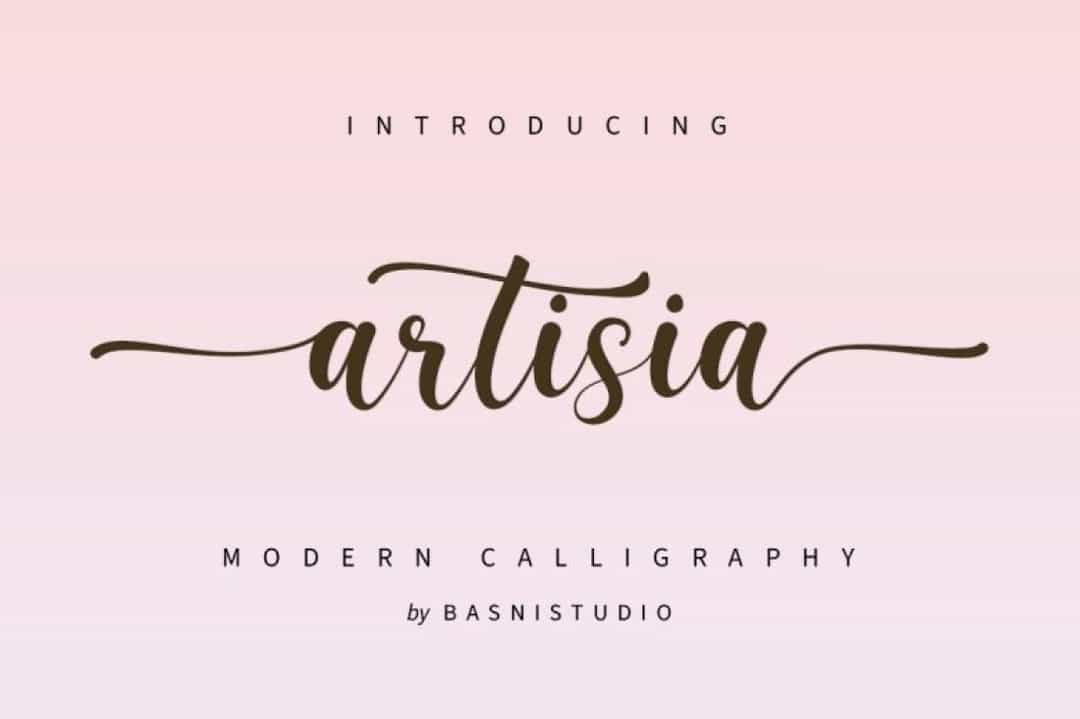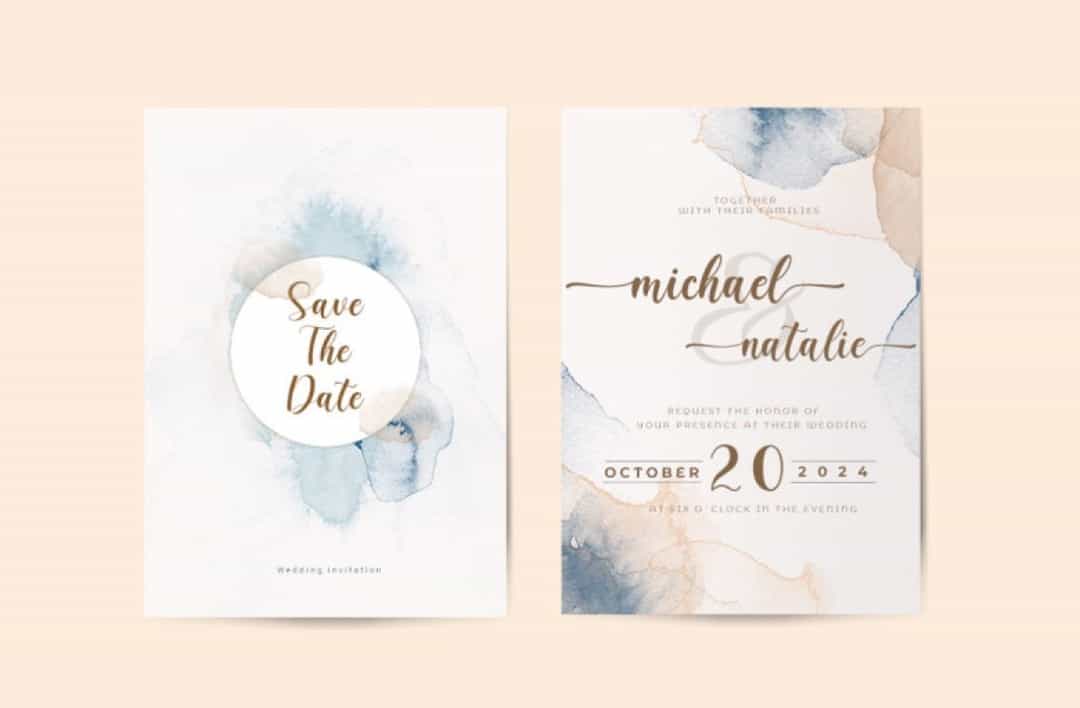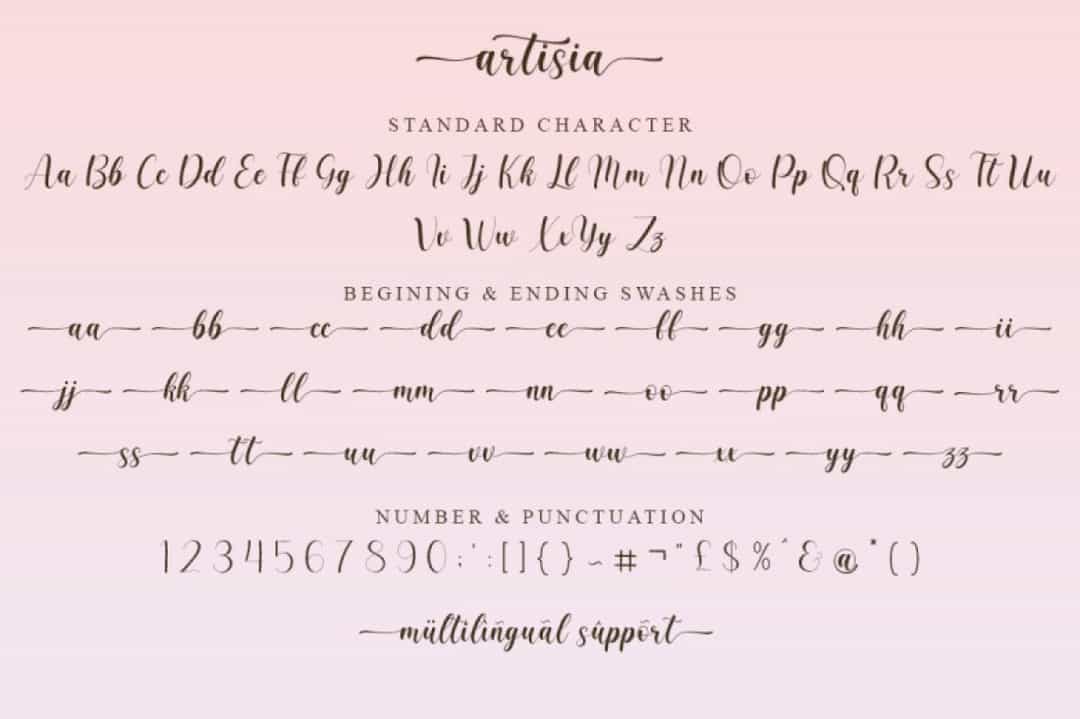
Artisia is a modern script Caligraphy Font designed by Love for precision and style, making it suitable for branding fonts, websites and editorial design projects alike. This font includes multilingual support as well as punctuation and binding features – everything can be accessed using software capable of supporting OpenType fonts.